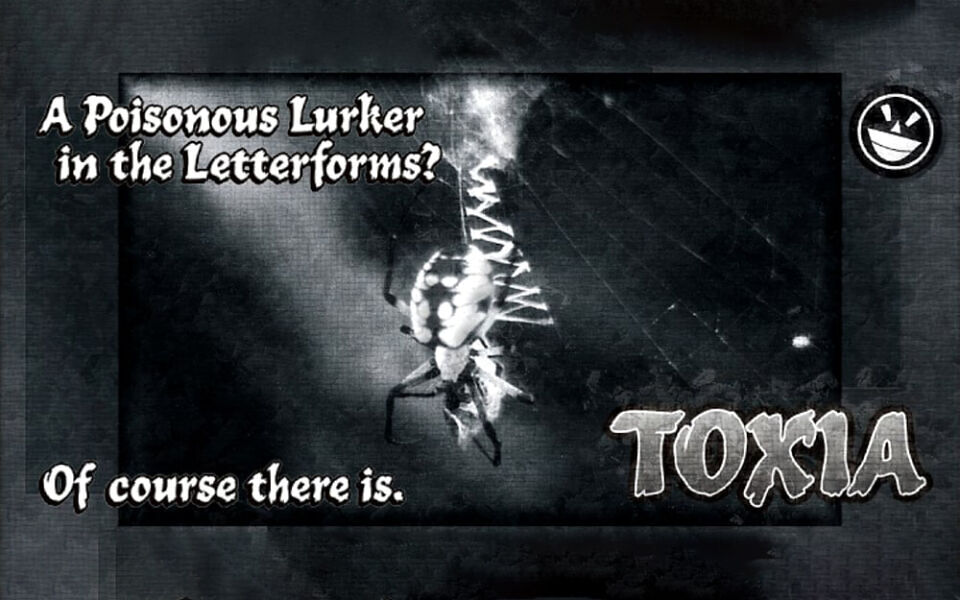
Toxia is a creepy—yes, eerie face, like something wet and poisonous clambering out of the swamp. It’s spooky too—yes, but it’s also frighteningly easy to read. Just don’t let it drip on you! Toxia is just one font in a package of five known as Wild Bunch Pak #1.